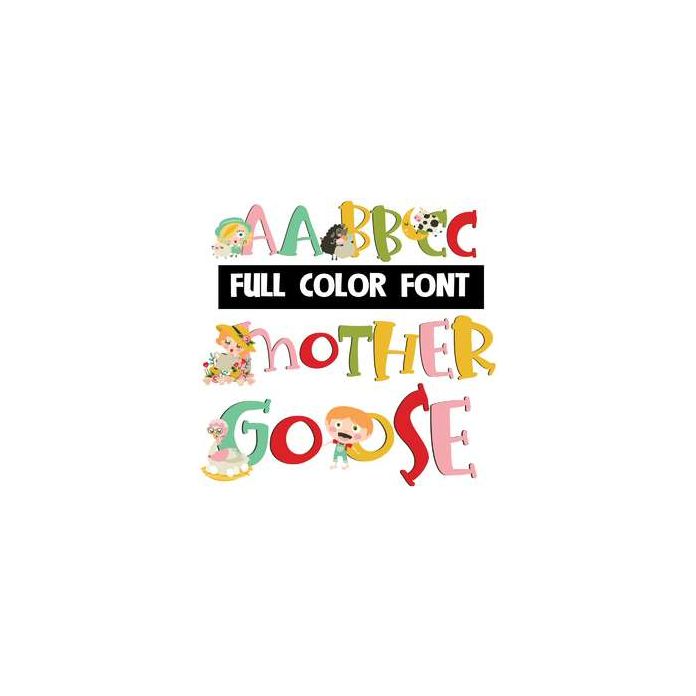
This full-color font features Mother Goose characters in the uppercase. This font works best for titles, displays, posters and more. Please note color fonts will show as black in non compatible programs. This font type is compatible with Silhouette Studio.